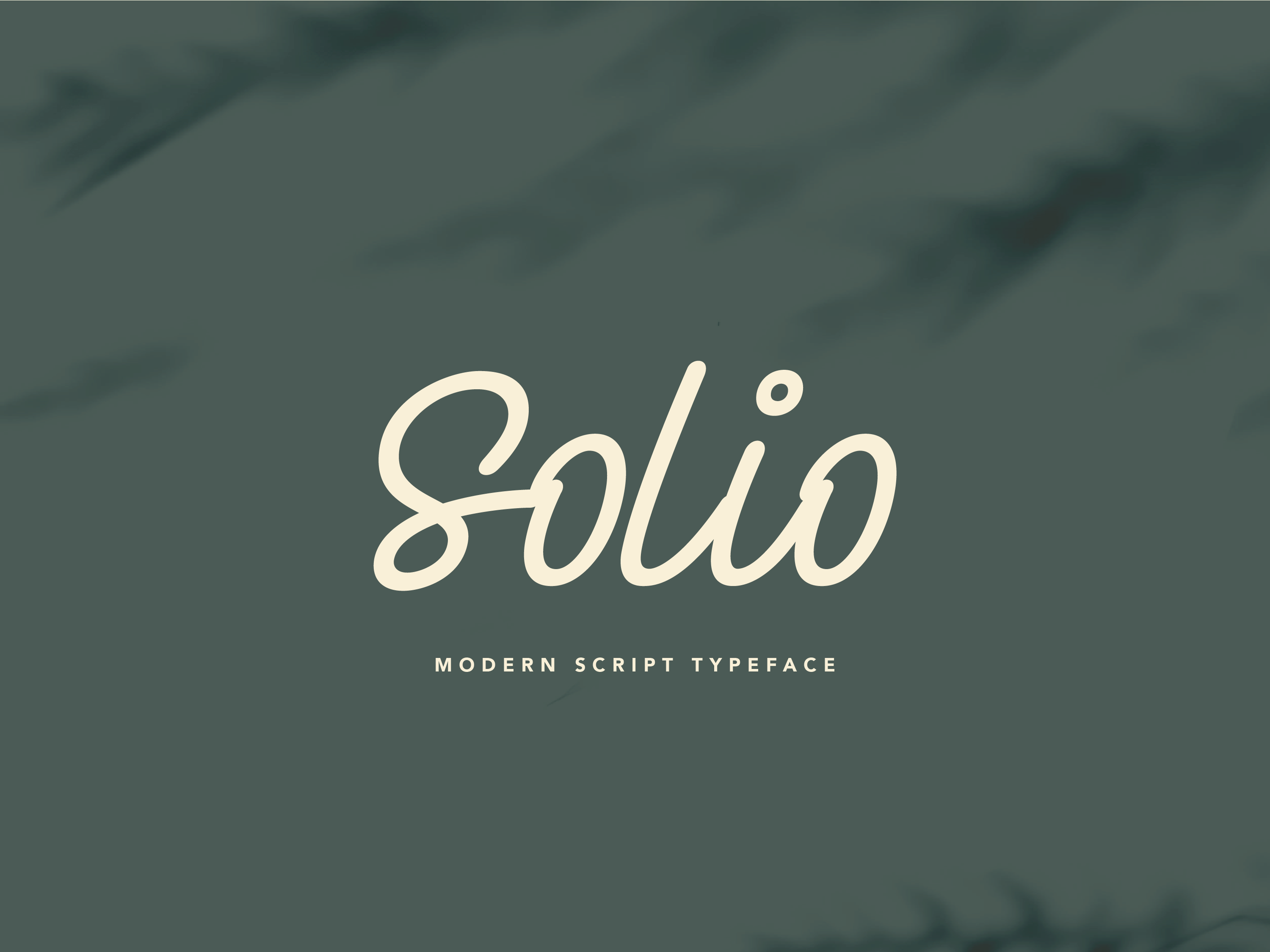
Solio Font | Handwritten Script Font
Solio is a bold, vintage-inspired font that captures the essence of classic monoline lettering. With its thick, uniform strokes, this font delivers a strong, impactful presence while maintaining a sense of nostalgic charm. Perfect for designs that require a touch of retro flair, Solio is ideal for logos, headlines, posters, t-shirts, and branding materials that demand attention.
The clean, monoline structure gives Solio a timeless quality, making it suitable for both modern and vintage-inspired projects. Whether you're crafting a logo, designing a poster, or creating a unique brand identity, Solio brings a bold, nostalgic vibe to your designs.